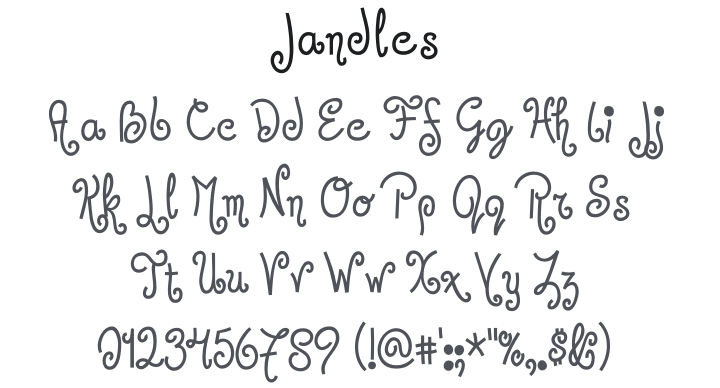
Jandles Font
About Jandles
Jandles is a corkscrewed, homespun semi-cursive display typeface with flowing, slightly twisting letterforms that feel hand-lettered with a loose, carefree wrist — warm, whimsical, and authentically imperfect. Its curly, interconnected strokes give text a friendly, personal rhythm. Perfect for party invitations, children's branding, handcrafted product labels, quirky logos, and any design needing playful, cottage-crafted personality.